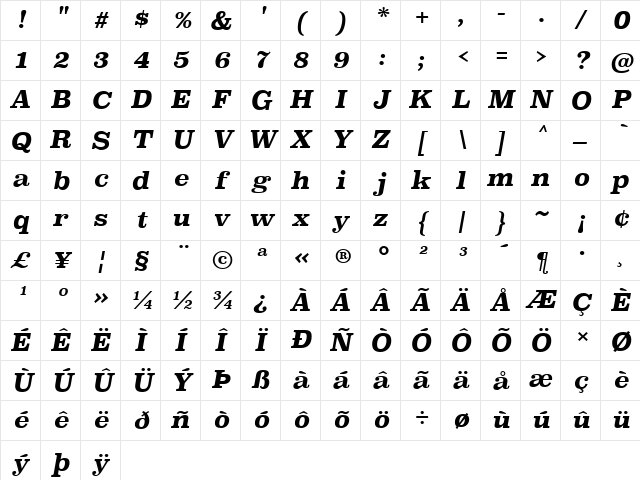
Superclarendon Bold Italic
Design Context for Superclarendon
Superclarendon features prominent, blocky serifs that give it a confident, grounded presence - equally at home in editorial settings and bold branding work. The slanted form adds forward momentum and visual energy. Its bold stroke weight gives it real presence on the page.
Pro Tip: Use Superclarendon for headlines and subheadings where its slab serifs can make an impression. It also holds up well in mid-size body copy thanks to its sturdy construction.